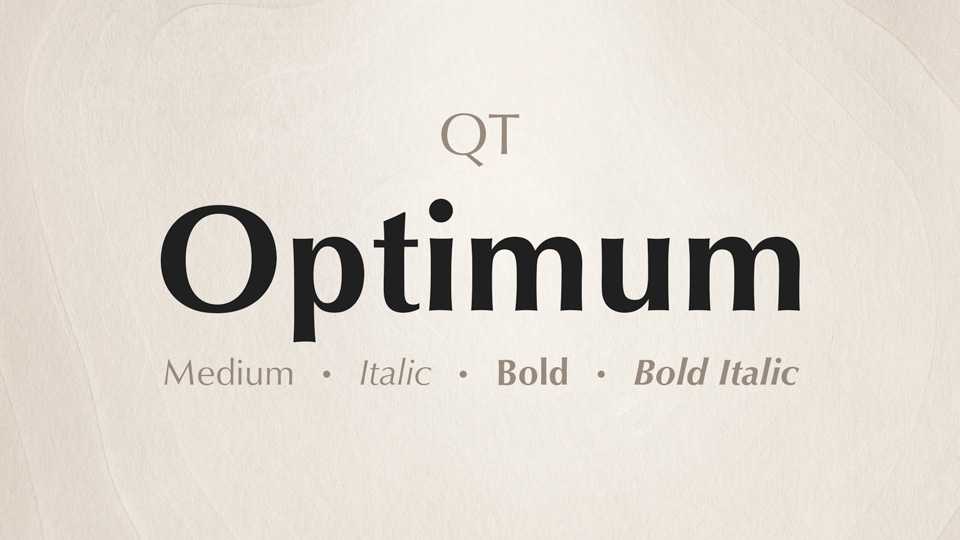
Download Optimum typeface, an elegant humanist sans serif font family in two weights and Italics based on the Optima, designed by Hermann Zapf in 1958.